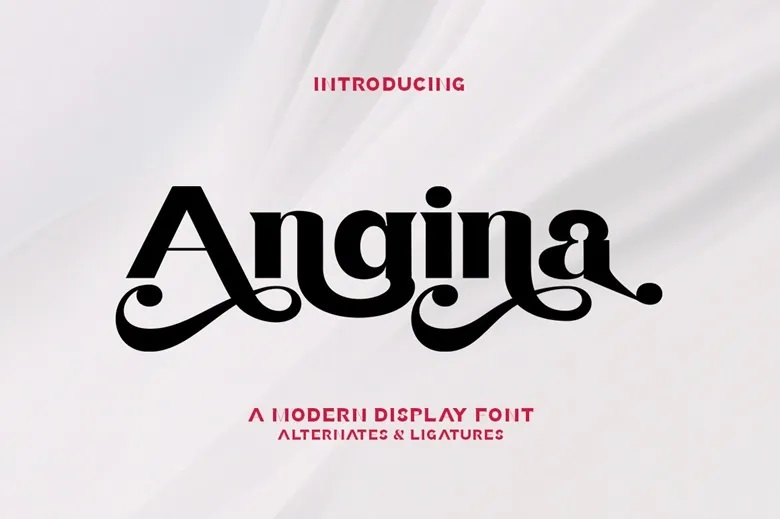
Angina Font
Angina is a modern display font that is luxuriously bold and bold in style for strong usage yet with versatility. Offers three designs Regular, Outline, Italic, and Outline Italic, and is very ideal for all the medium or large uses due to its precise line shape that made by flying machines.
It is ideal for graphic design and screen utilization whether you are in branding, magazines, editorials, wedding invitations, logo design, posters, social media, and almost any kind of project!
Angina Display Font